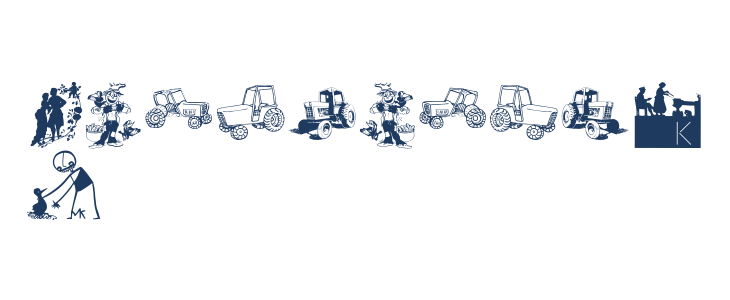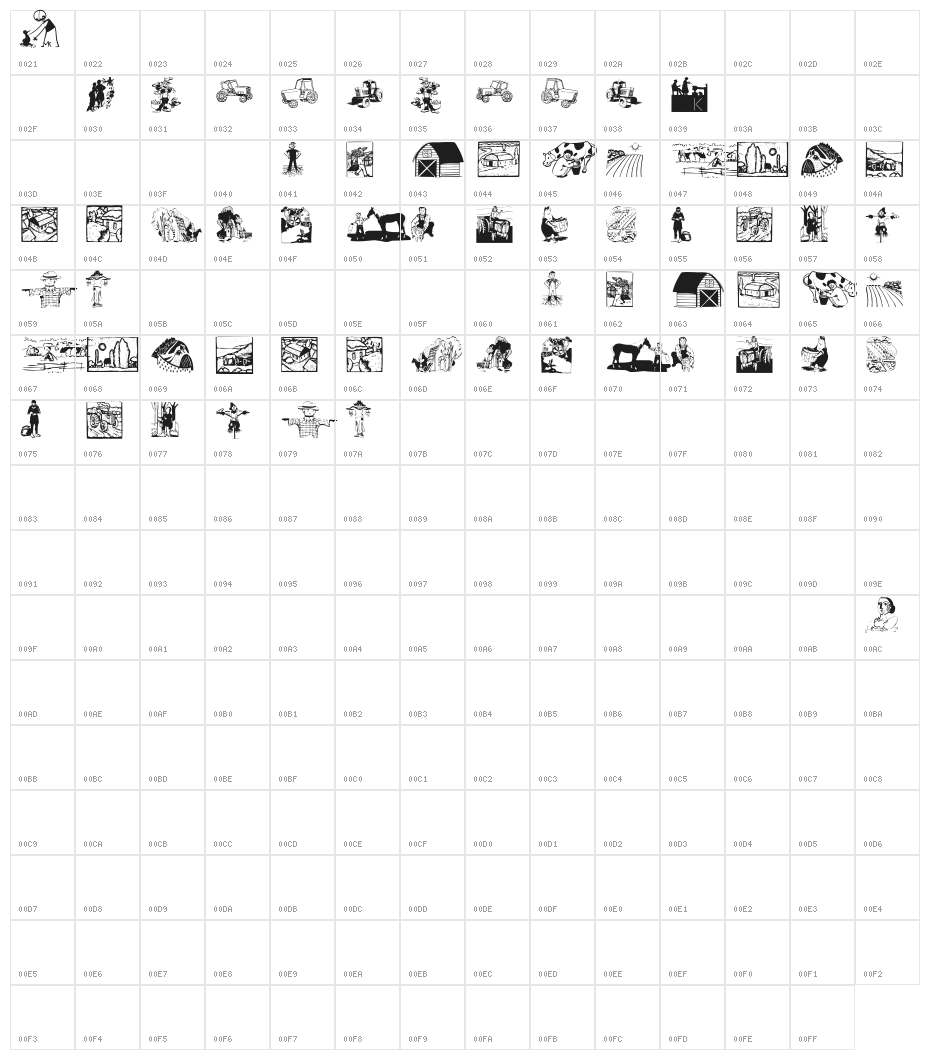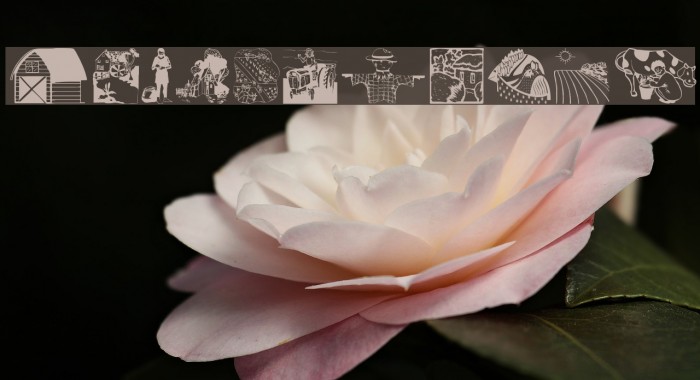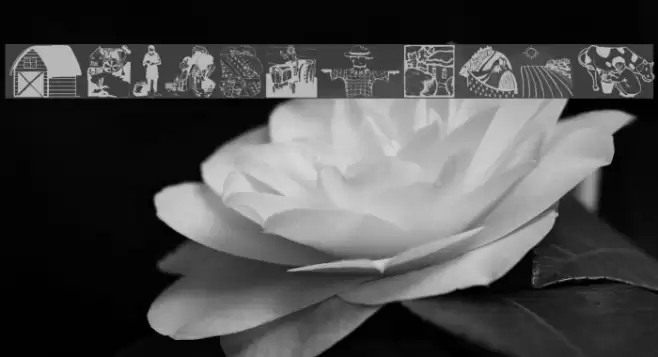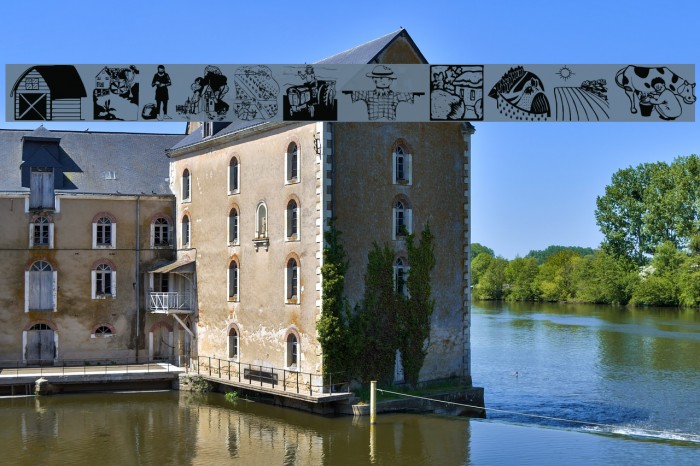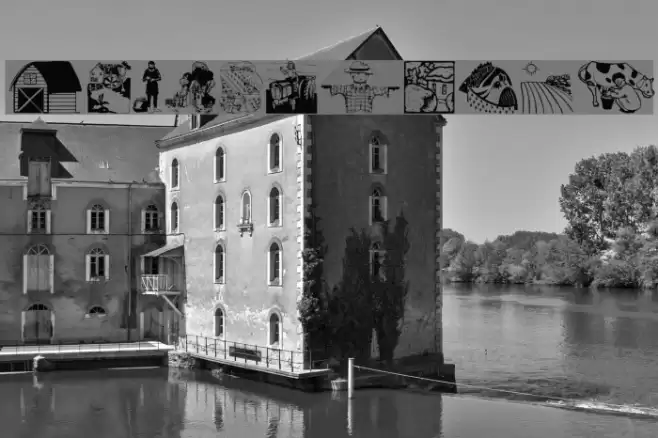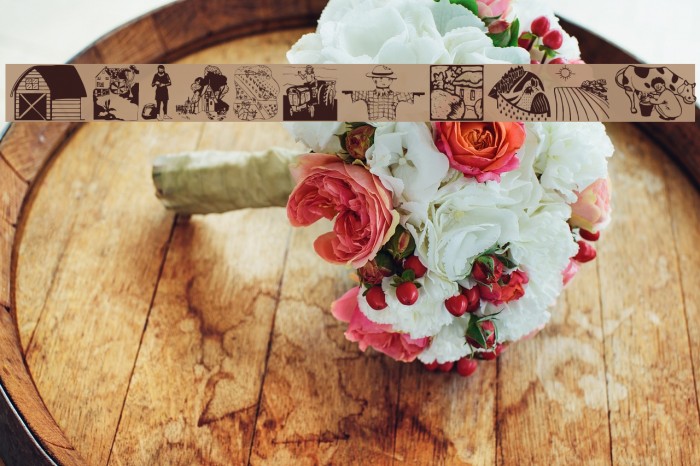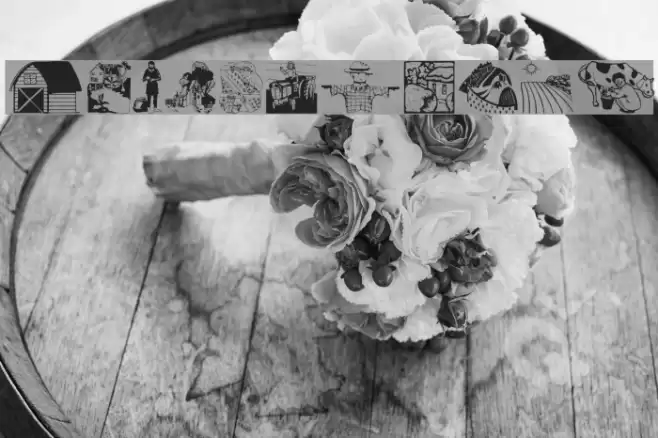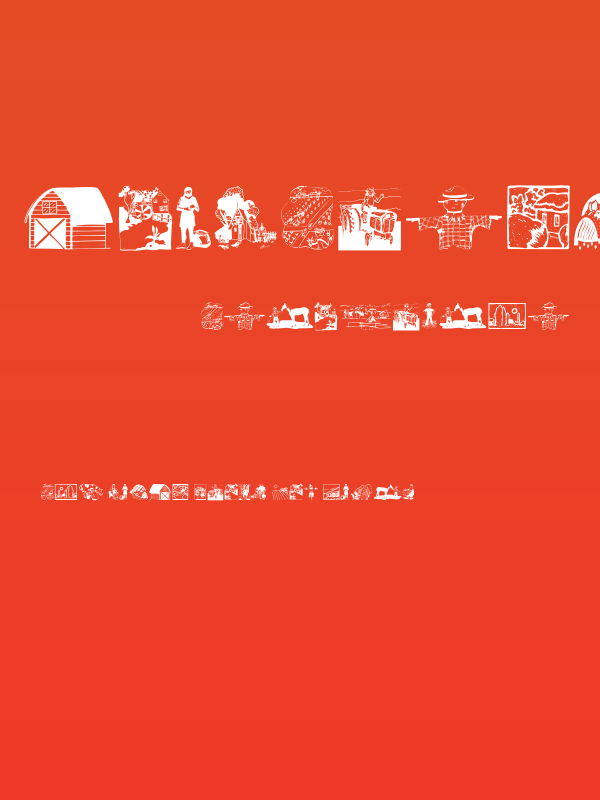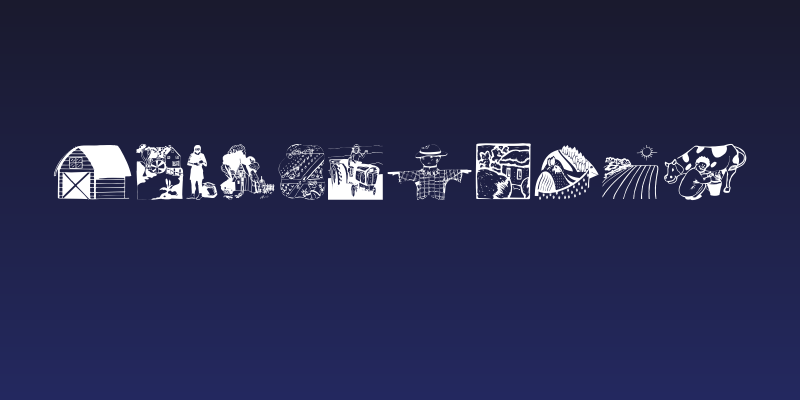
CountryLife Font
CountryLife Description
This decorative font captures the essence of rural life with a series of detailed illustrations depicting various aspects of country living. Each character is represented by a unique image, such as farm animals, barns, tractors, and fields, creating a whimsical and nostalgic feel. The illustrations are intricate, with a hand-drawn quality that adds charm and character. This font is not designed for traditional text but rather as a collection of themed icons that convey a story or theme related to country life.
| Use Case | Logos, Decorative elements, Themed illustrations |
| Proposed Projects | Ideal for projects related to agriculture, rural-themed events, educational materials about farming, or decorative elements in country-themed designs. |